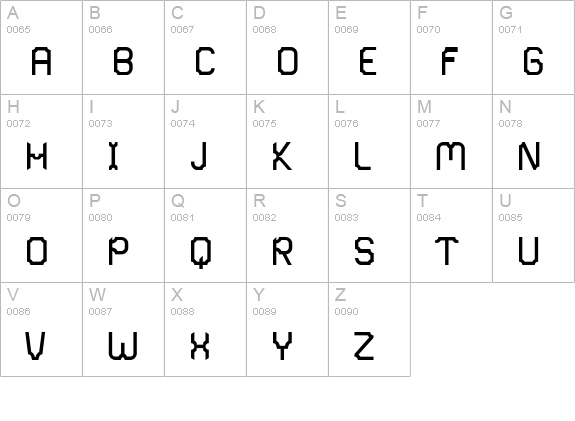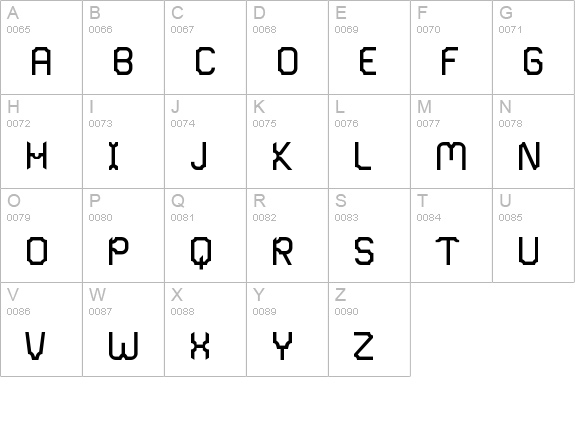
Sabril Font Details
Sabril is a modern and elegant font that exudes sophistication and style. Its sleek and clean lines make it perfect for a wide range of design projects, from branding to editorial layouts. The versatility of Sabril font allows it to be used for both headings and body text, ensuring a cohesive and polished look across all your designs. What makes Sabril font even more appealing is that it is available for free download at FontsMarket.com. This means you can easily access this beautiful font without any cost, making it a valuable addition to your font collection. Whether you're a seasoned designer or just starting out, Sabril font is sure to elevate your designs and bring a touch of refinement to your projects. Download Sabril font today and discover the endless possibilities it offers for your creative endeavors.